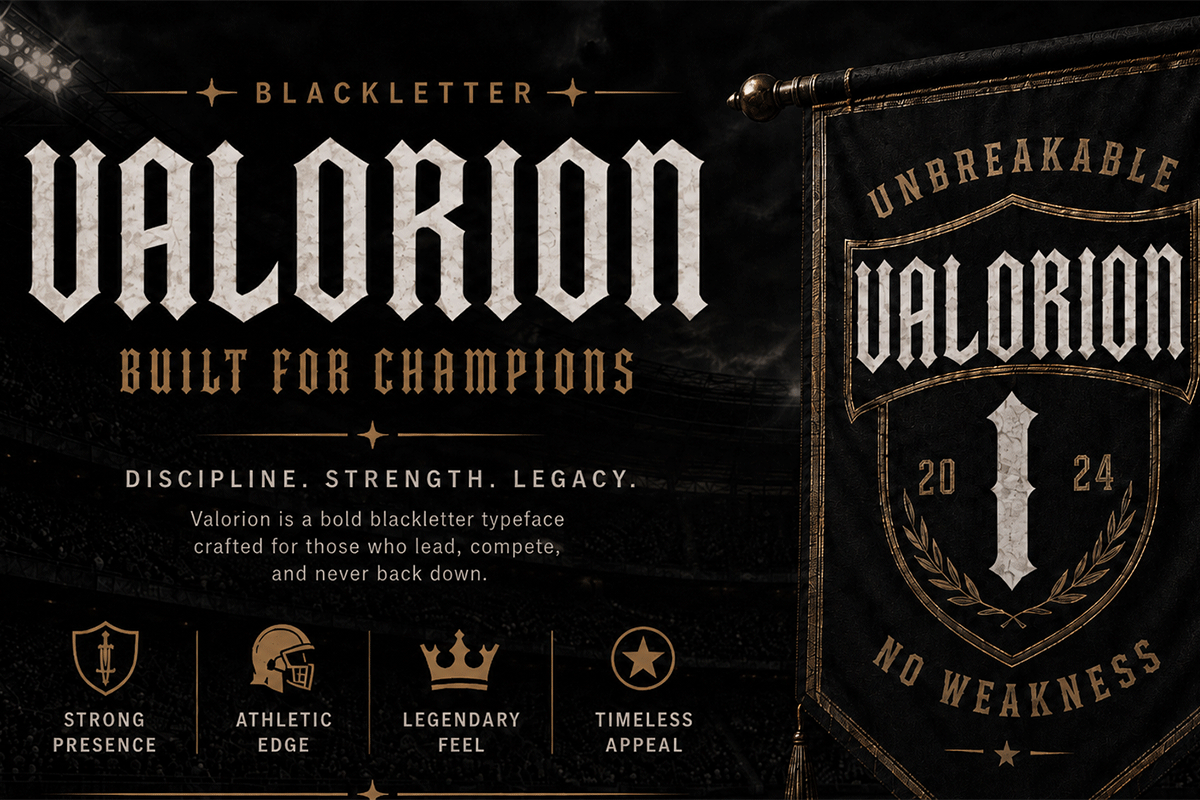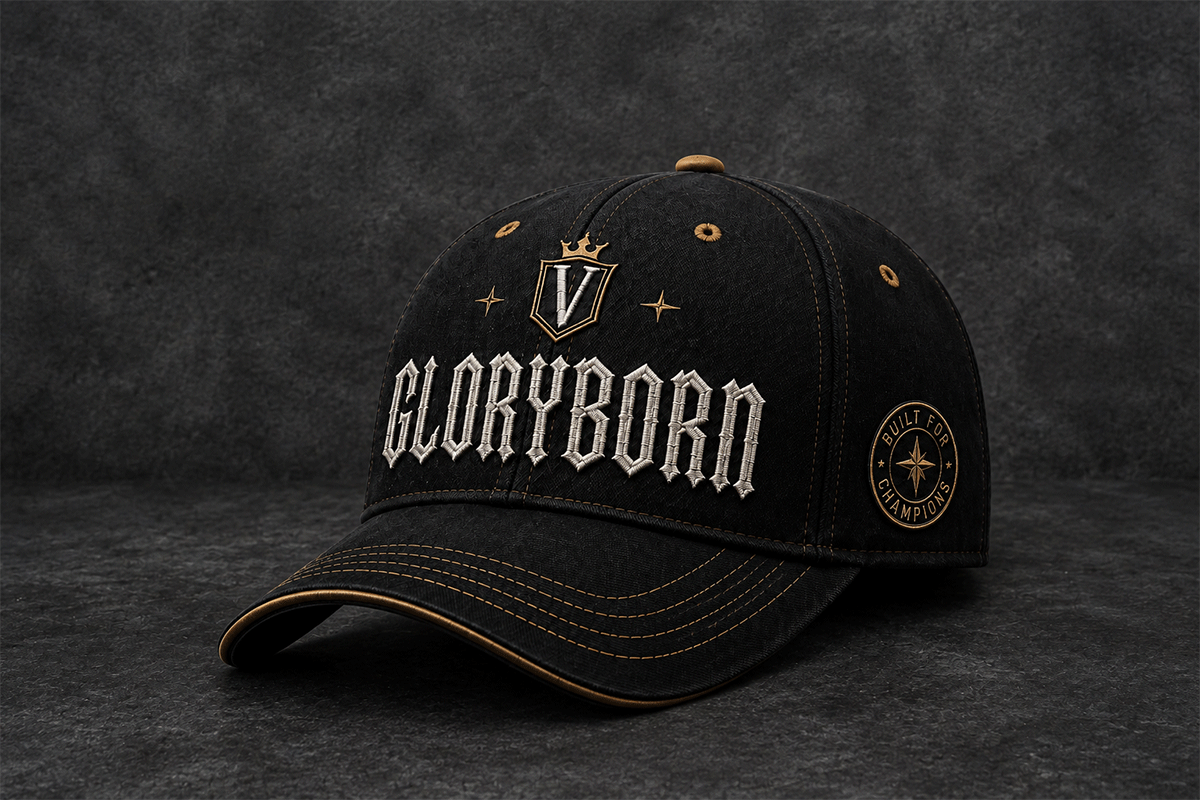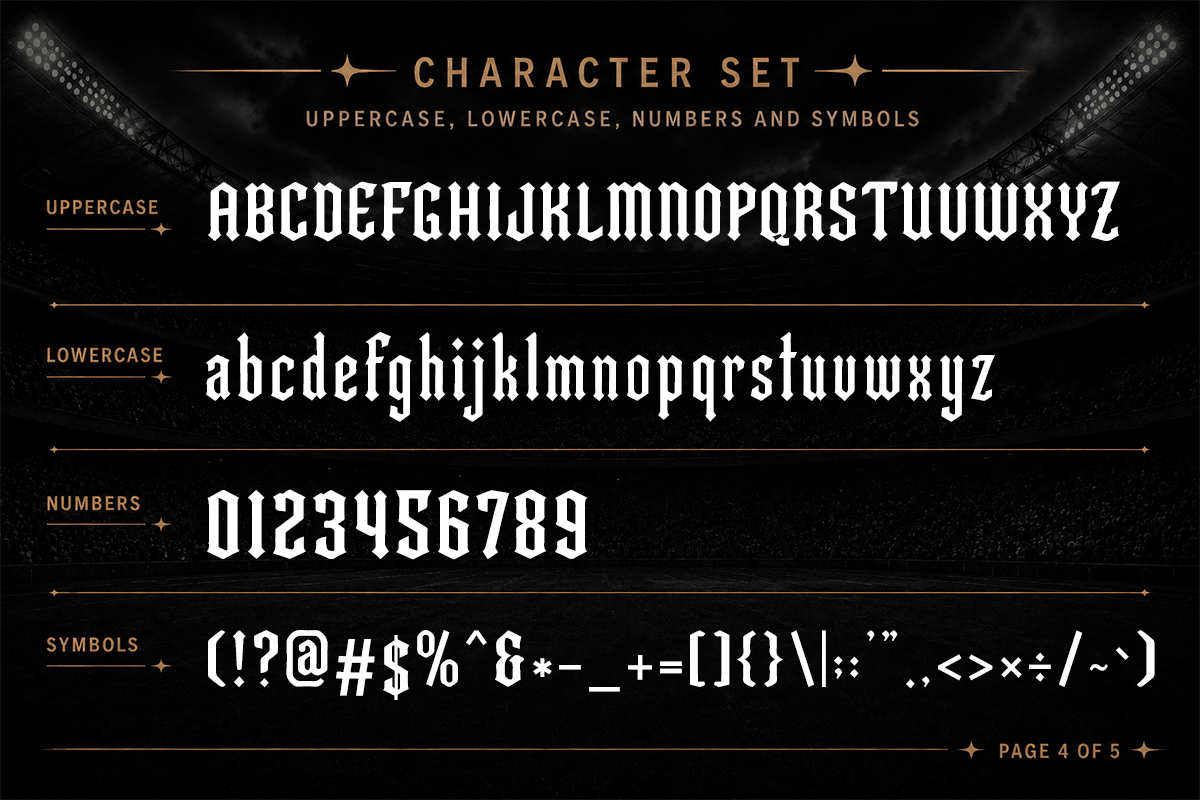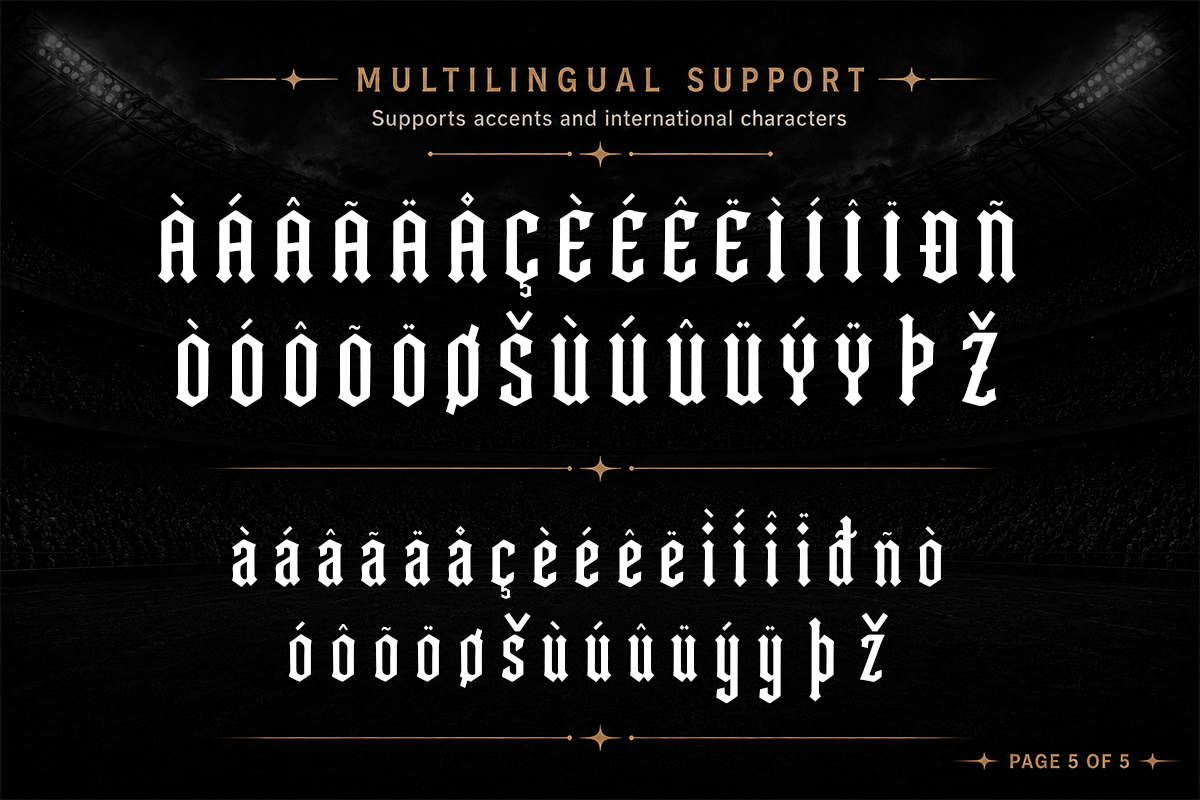
Ironclad A Modern Gothic Sport Display Font is a bold gothic sports display font built to deliver strength, intensity, and a commanding visual presence. Featuring tall, sharp letterforms with strong medieval-inspired details, this typeface combines classic gothic character with the powerful energy of modern sports design.
Its solid structure and dramatic appearance make Ironclad A Modern Gothic Sport Display Font perfect for designs that need to feel competitive, fearless, and authoritative. Whether used for team branding, event posters, apparel, or powerful headlines, Ironclad instantly gives your project a tough and memorable identity.For our customers, we provide a collection of The Best decorative Fonts, each with its own unique styles and characteristics, so that our customers can create any design they want. We know what our clients love! That is why we prepare everything you may need in one simple downloadable package for you. Our easy-to-grab package contains all of the files you will ever need to create beautiful typography!